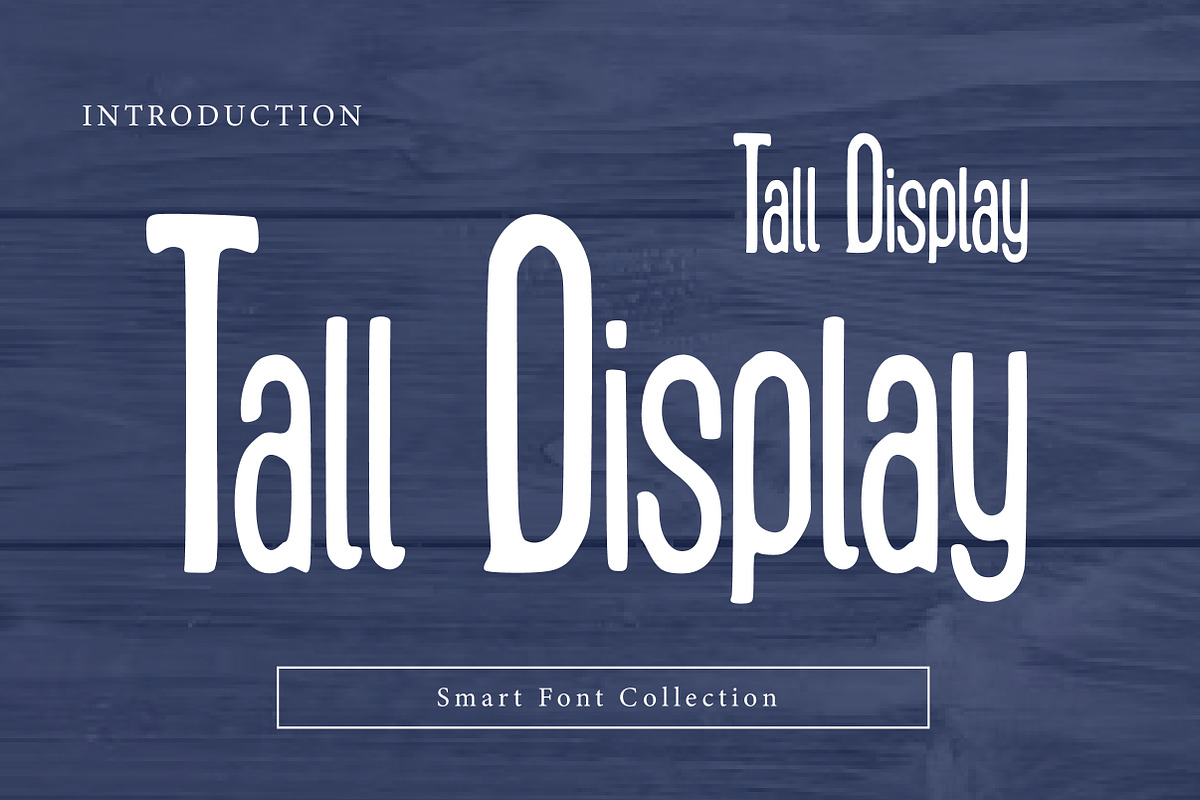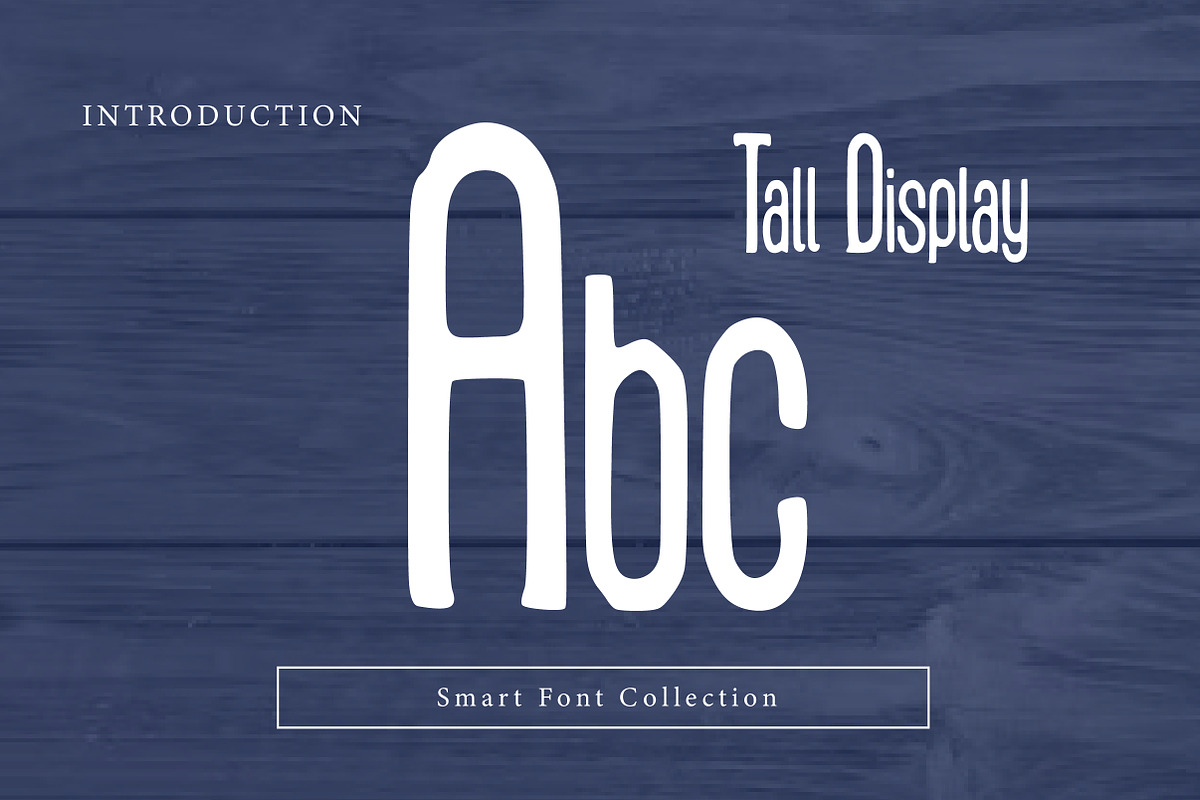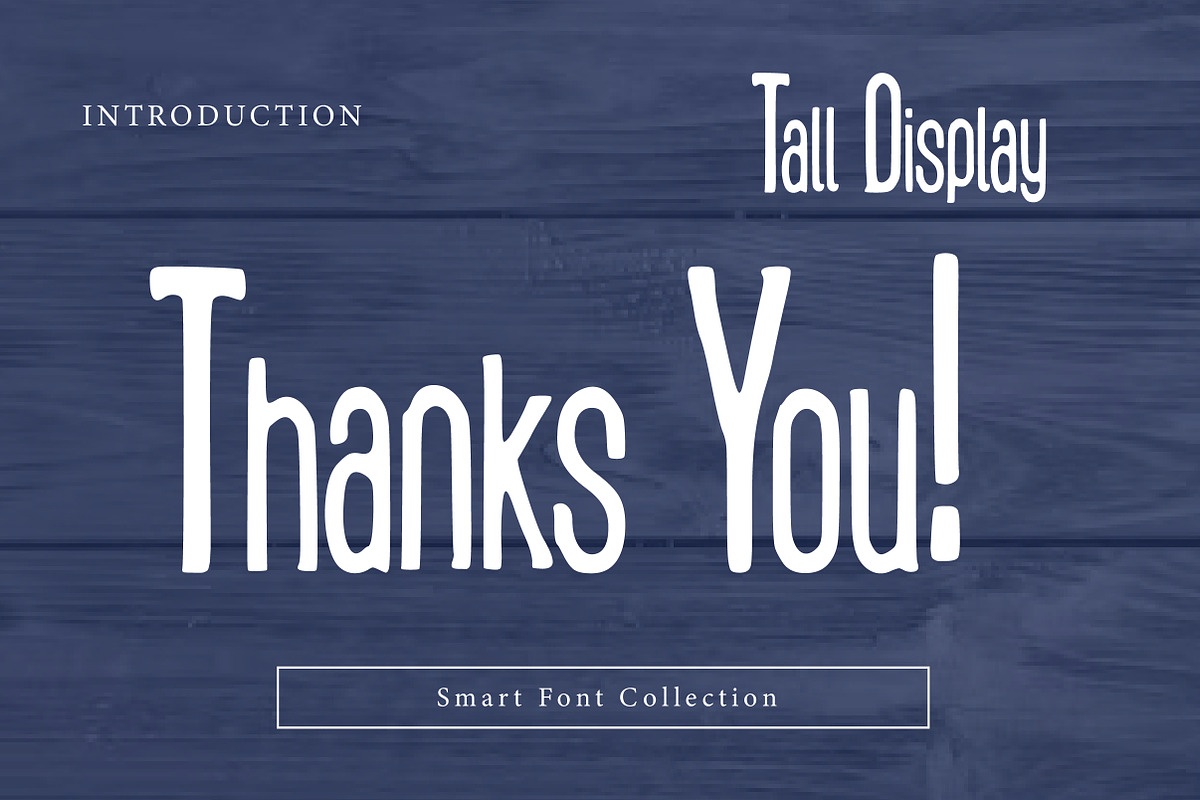
Tall Display
Tall Display is a clean, modern display font defined by its tall proportions and elegant simplicity. With narrow letterforms, smooth curves, and a confident vertical rhythm, this typeface is perfect for headlines, posters, logos, editorial layouts, fashion branding, packaging, and minimalist designs. Tall Display delivers a refined, contemporary look while maintaining strong readability—ideal for projects that need height, style, and sophistication in their typography.